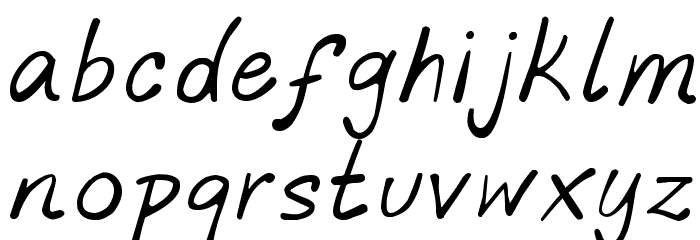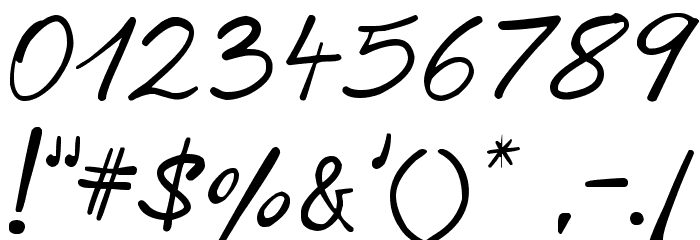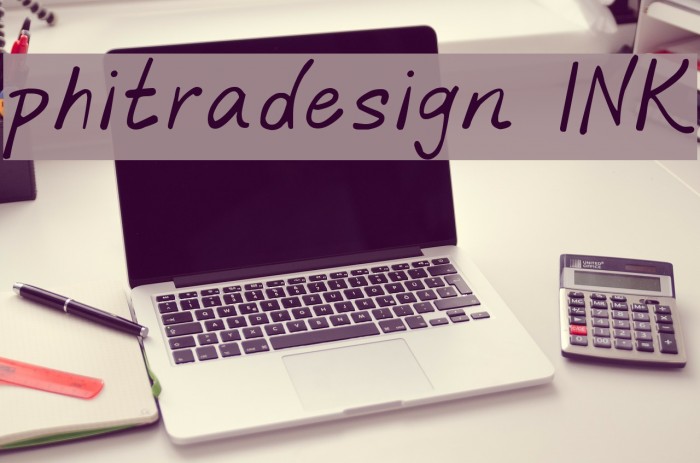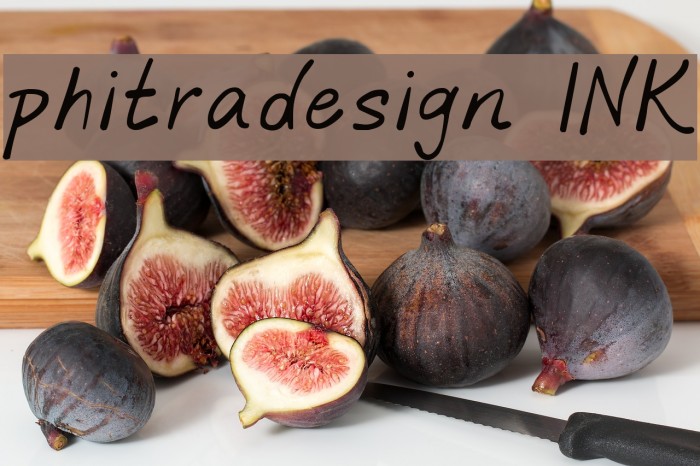
phitradesign INK Font
This font features a casual, handwritten style with a playful and informal appearance. The letters are slightly slanted, giving it a dynamic and energetic feel. The strokes are smooth and fluid, with a consistent thickness that maintains readability while adding a touch of personality. The uppercase and lowercase letters are well-balanced, and the numerals and special characters complement the overall style. This font is versatile and can be used in various design projects that require a personal touch.
A casual, handwritten font with smooth, fluid strokes and a playful appearance.
- Proposed Projects: Ideal for greeting cards, invitations, personal branding, and social media graphics.
- Category: Handwritten
- Overall Style: Casual
- Use Case: Logos, Headlines, Informal Text